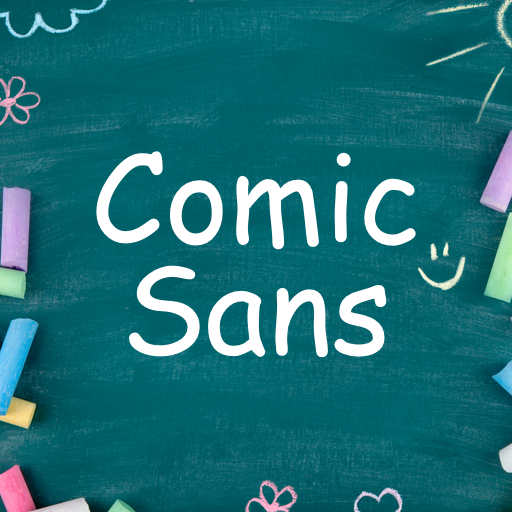
Comic Sans Pro FlipFont
Description of Comic Sans Pro FlipFont
Comic Sans® Pro the charm and character of the original Comic Sans typeface. And now its affable characters can live on your phone, as well as your desktop.
Pan-European character set
supports Western, Central and Eastern European languages.
Smooth fonts,
One of the two best fonts of all time!
Beautiful fonts.